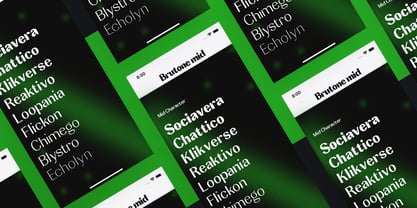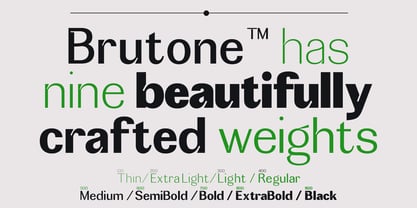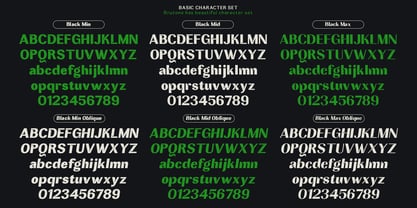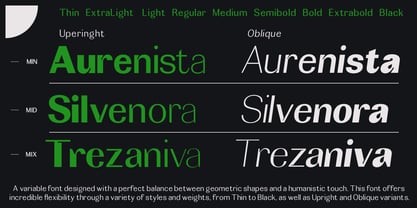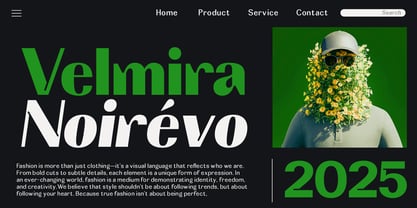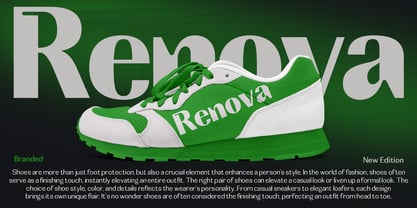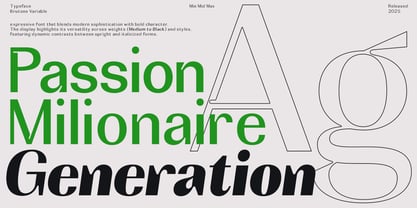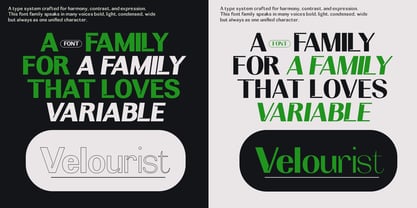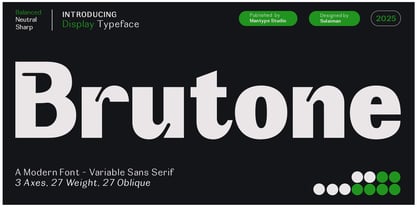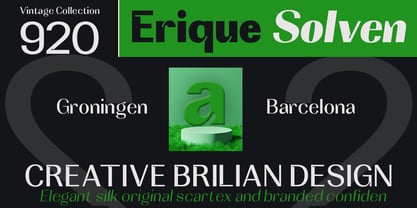
Brutone
The Brutone Font Family was designed by Sulai Man and published by Mantype Studio. Brutone contains 55 styles and family package options.
Brutone is a modern sans serif font with a neutral, and balanced design, crafted for strong and flexible display use. Featuring sharp yet clean characteristics, Brutone is ideal for branding projects, editorial layouts, UI/UX, and contemporary visual design. With 3 variable font axes — Weight, Styles, and Slant — Brutone offers maximum flexibility for modern typographic needs. Its solid yet approachable letterforms make it perfect for headlines, logos, and visual identities that demand strength and clarity. Whether used in large-scale layouts or minimal interfaces, Brutone delivers consistency, personality, and professional impact across every platform.